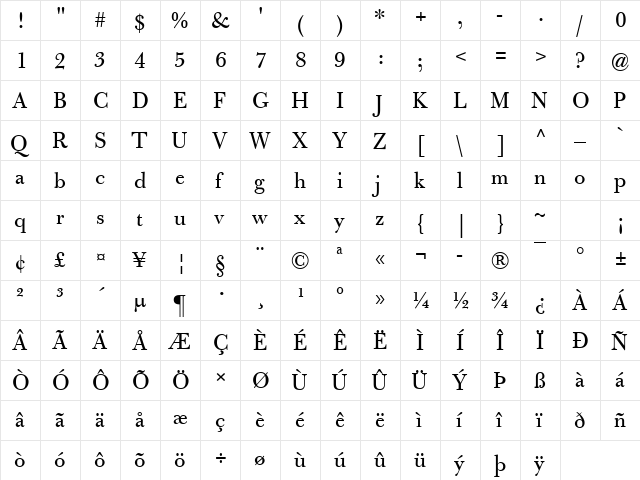
Bulmer MT Regular Regular
Design Context for Bulmer MT Regular Typeface
Bulmer MT Regular is a composed and adaptable typeface that performs quietly and consistently across a wide range of design contexts.